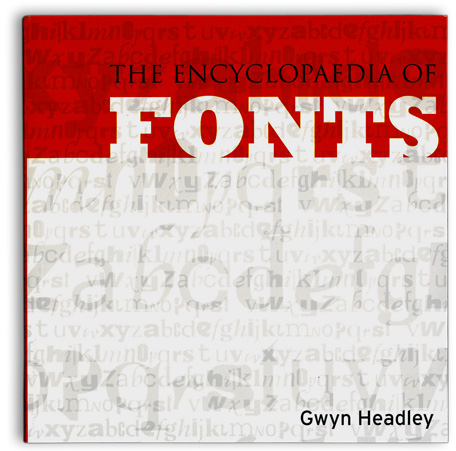
Encyclopaedia of Fonts
Gerade frisch bei uns eingetroffen: The Encyclopaedia of Fonts von Gwyn Headley.
"The world of type has undergone massive changes in the past few years. Now, designers can find a font for a particular project, order it, pay for it, and download it in a matter of just a few minutes. The only difficult part of this process is often finding the right font. This book shows 10,000 fonts and will provide unrivailed inspiration to those people who work with type every day, From Arabic to Bitstream and Cyrillic to Teluga, this book is the only reference book designers will ever need."
Here are the family trees and inspirations for yesterday's and today's masters of typographic design. Showing more of the world's most popular fonts than any other, this comprehensive reference book lists fonts by date and style, revealing at a glance how type designs have evolved over time.
- Provides a visual guide to Text fonts – designed for maximum legibility; and Display fonts – designed to attract attention.
- Chronological listings show how new ideas have been introduced and how designs have developed.
- Well-informed, witty notes reveal the origin of many font names.
- An instant reference for the graphic revolution of the last 25 years.